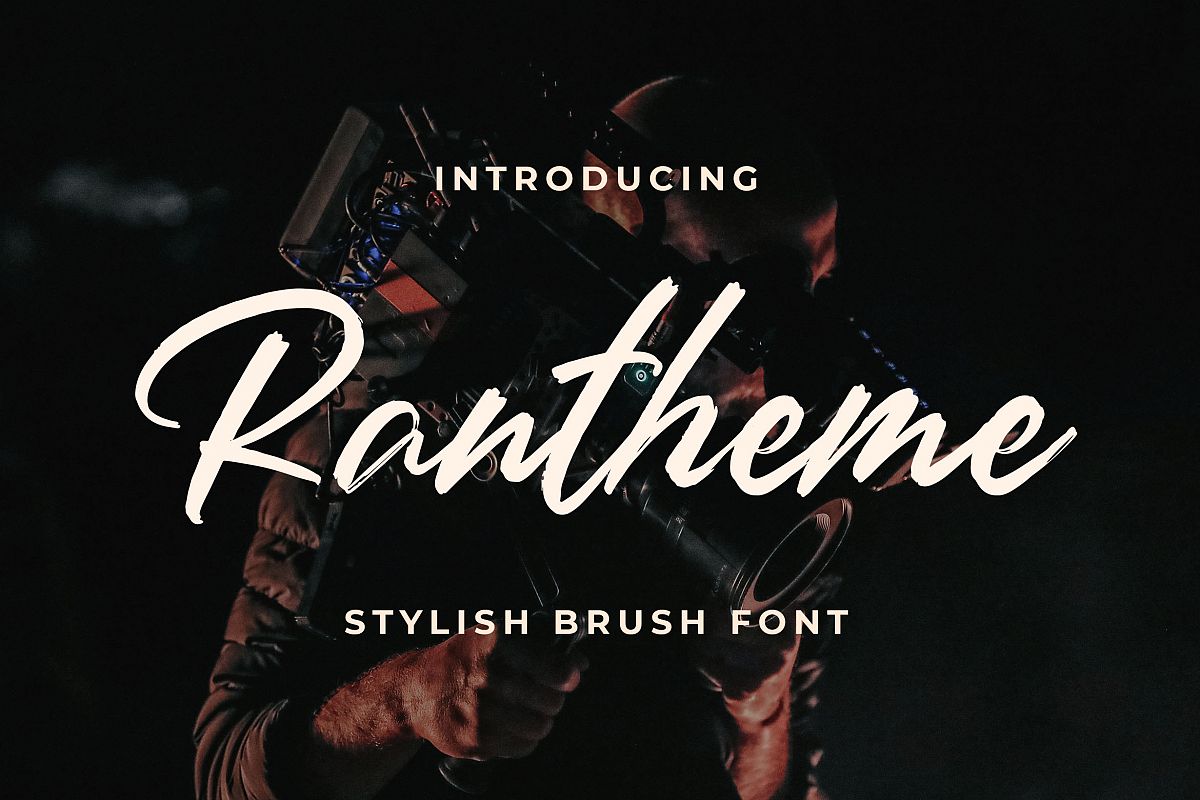
Introducing of our new product the name Rantheme Stylish Brush Font. Rantheme inspired from brush calligraphy this font is a fun theme very good for signature, poster, branding, logotype etc
**MULTILINGUAL ACCENT :**
ŽžŠŒšŸÀÁÂÃÄÅÆÇÈÉÊËÌÍÎÏÐŁÑÒÓÔÕÖØÙÚÛÜÝßàáâãäåæçèéêëìíîïłñòóôõöøùúûüýÿ
**FEATURES :**
* Uppercase
* Lowercase
* Number
* Punctuation
* Multilingual
* PUA Encode
* Opentype